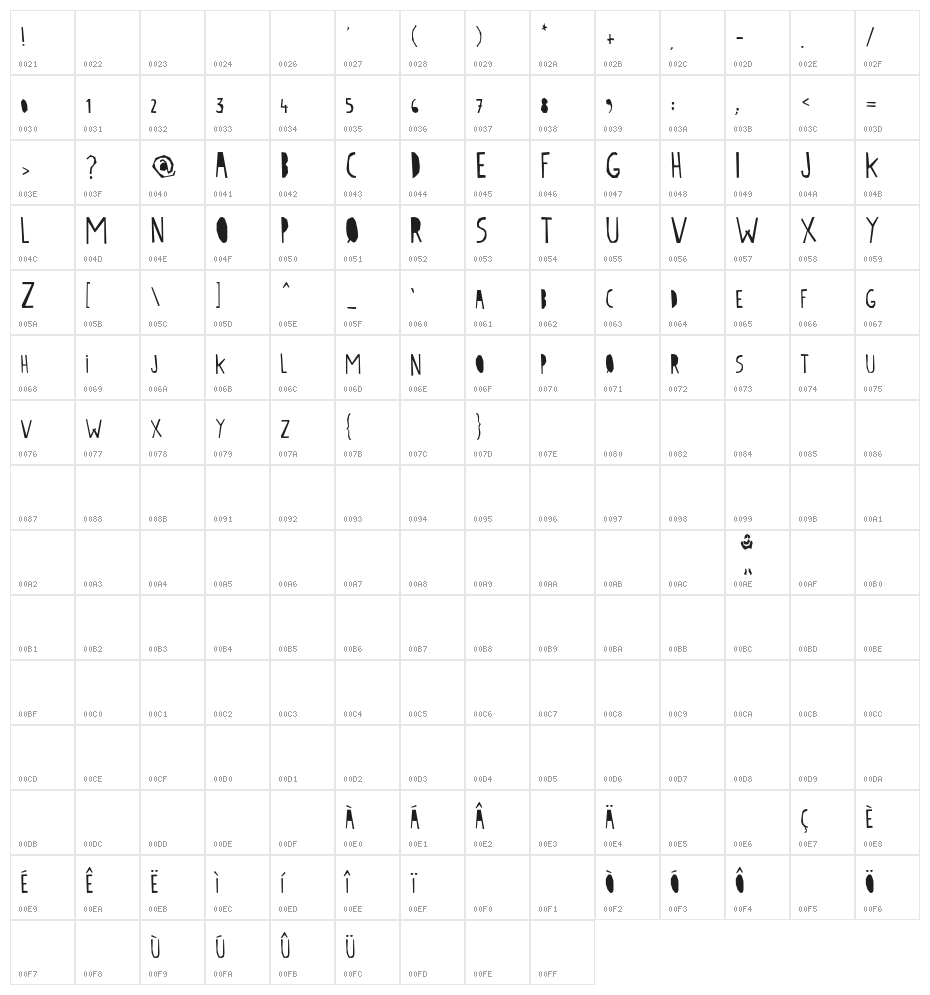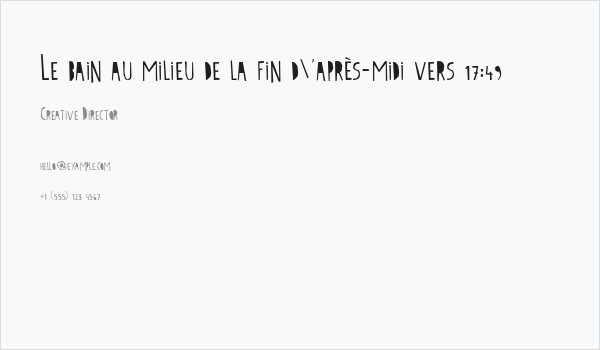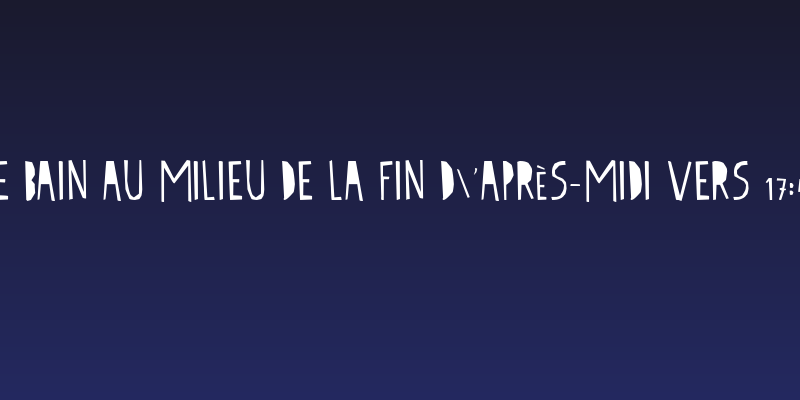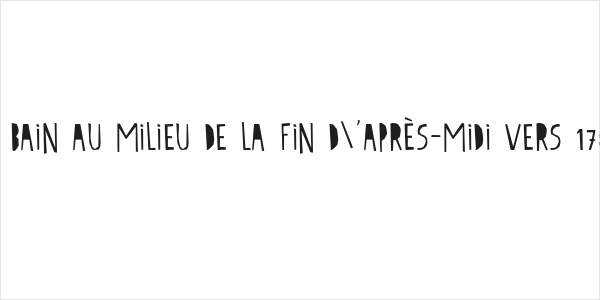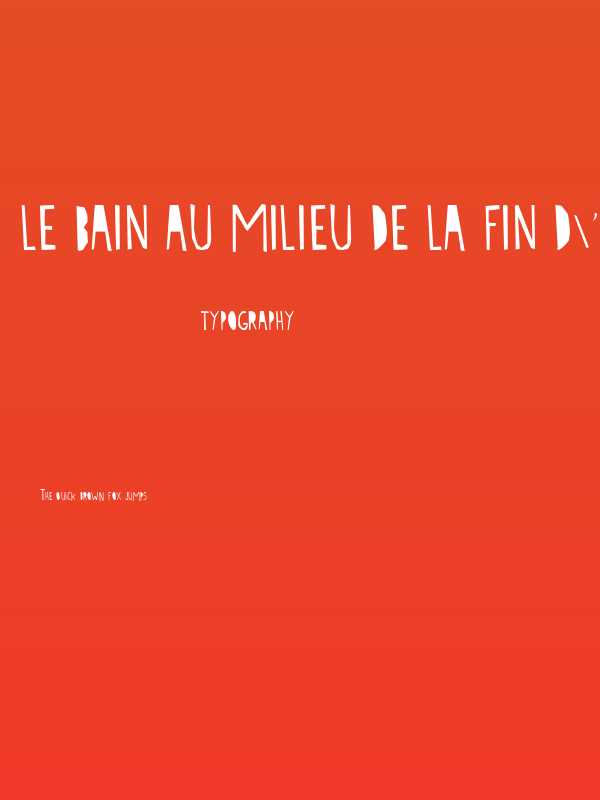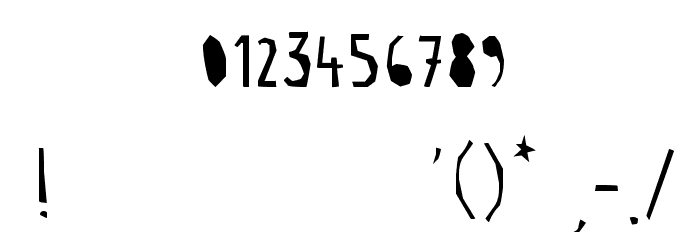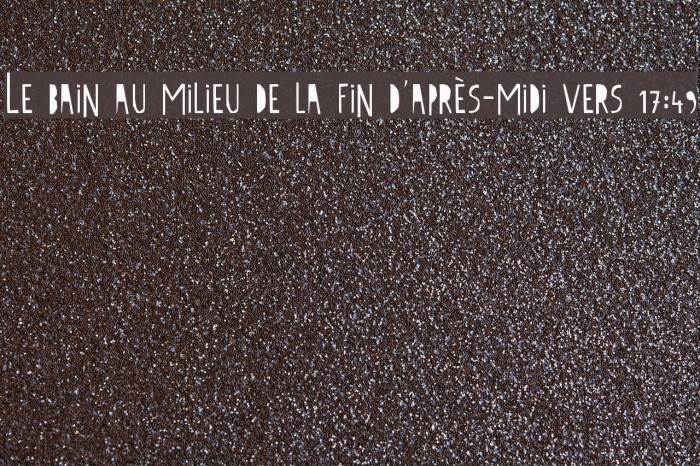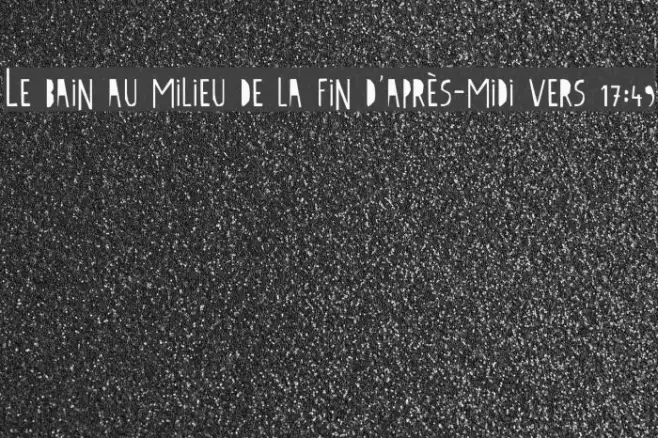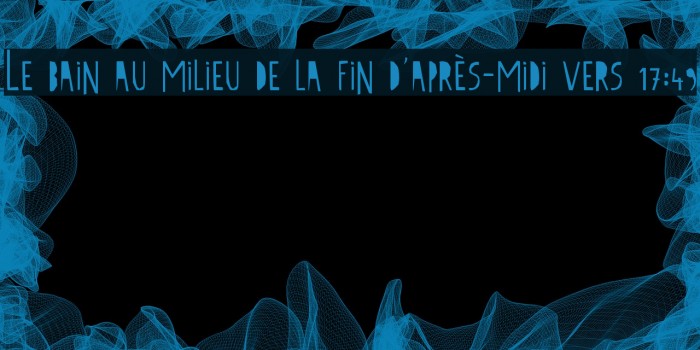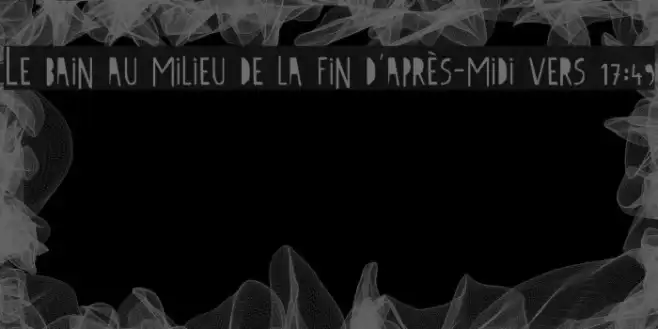
Le bain au milieu de la fin d'après-midi vers 17:49 Font
Le bain au milieu de la fin d'après-midi vers 17:49 Description
This font features a unique and artistic style with irregular, jagged edges and varying stroke widths, giving it a hand-crafted appearance. The uppercase letters are bold and distinct, with some characters featuring unexpected angles and cuts, adding to its quirky and playful nature. The lowercase letters maintain a similar style, with a slightly more condensed form. Numbers and special characters follow the same design principles, ensuring consistency across all glyphs. This font's unconventional design makes it stand out, offering a creative and dynamic look.
| Proposed Projects | Ideal for creative projects such as posters, album covers, and artistic branding where a unique and playful typeface is desired. |